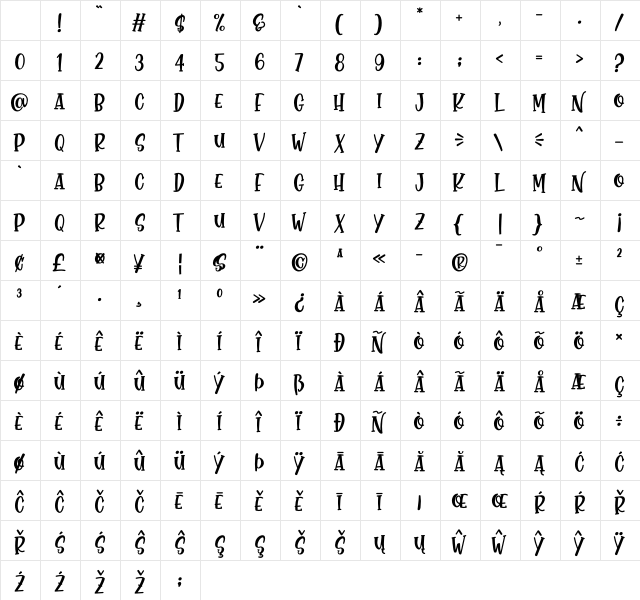
Complete SQUARE LEMON Regular glyph index. Displaying only characters natively supported by SQUARE LEMON Regular font.
SQUARE LEMON is a composed and adaptable typeface that performs quietly and consistently across a wide range of design contexts.